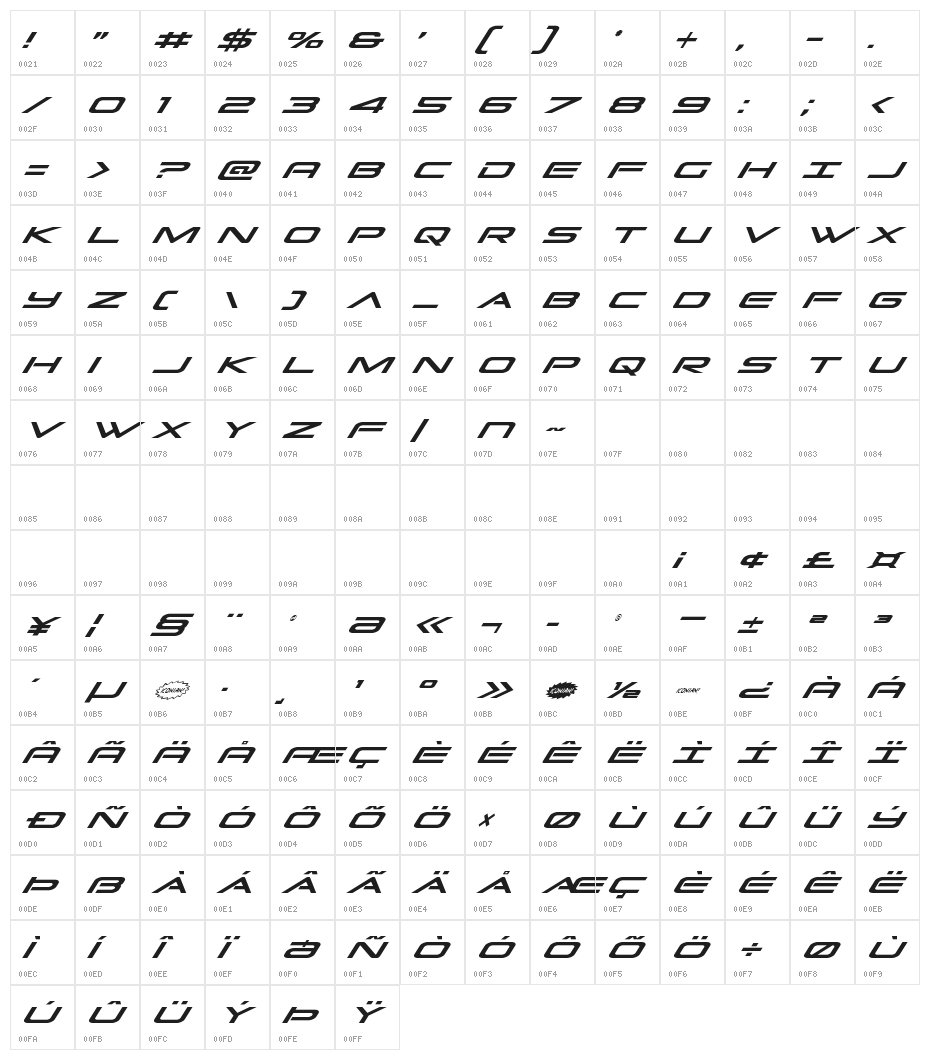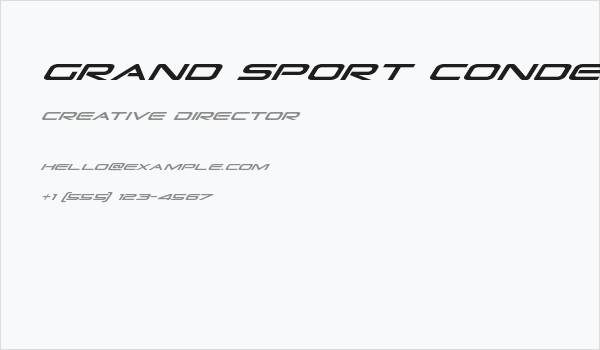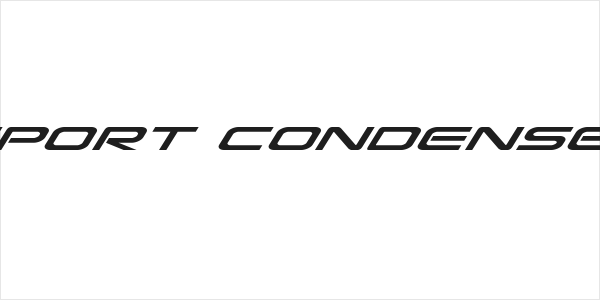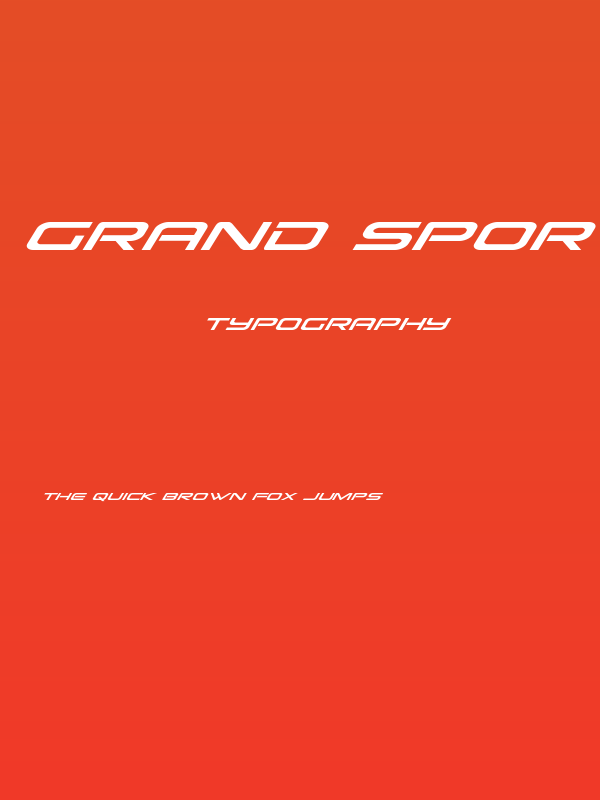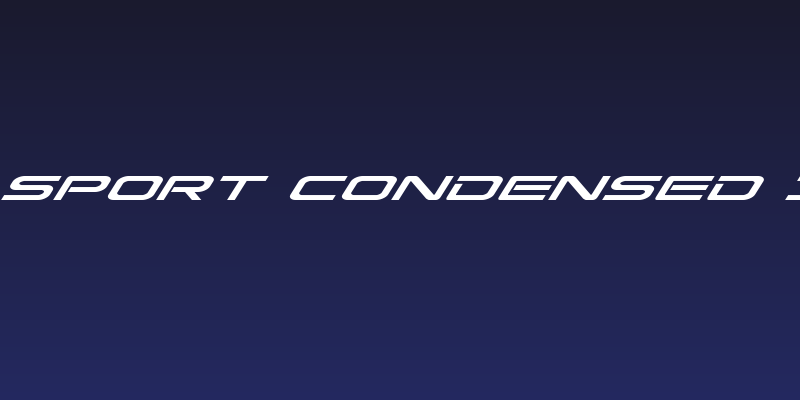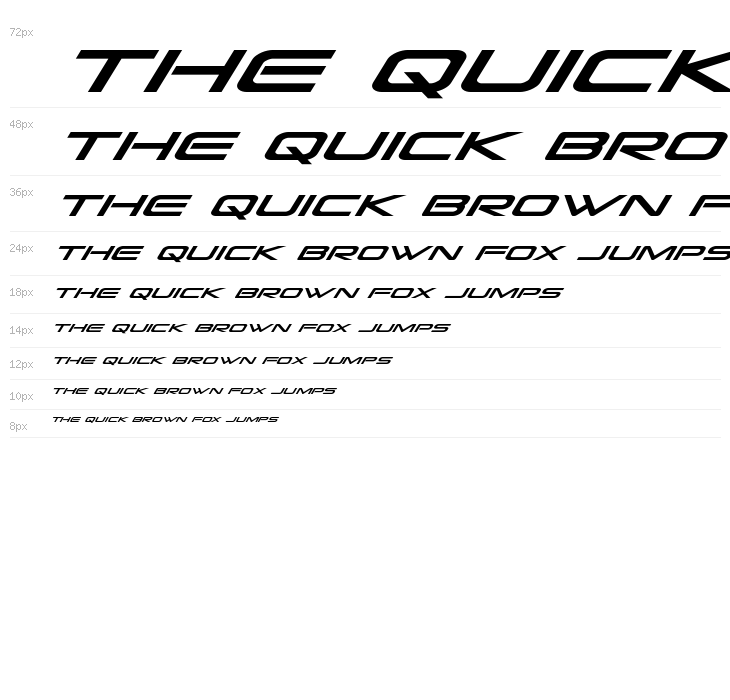
Grand Sport Condensed Italic Font
Grand Sport Condensed Italic Description
This font features a sleek, italicized design with a condensed structure, giving it a dynamic and modern appearance. The characters are slightly slanted, enhancing the sense of motion and speed. The strokes are consistent in weight, providing a uniform look across all characters. The uppercase and lowercase letters maintain a cohesive style, with sharp angles and clean lines. The numerals and special characters are designed to match the overall aesthetic, making this font suitable for various applications where a contemporary and sporty feel is desired.